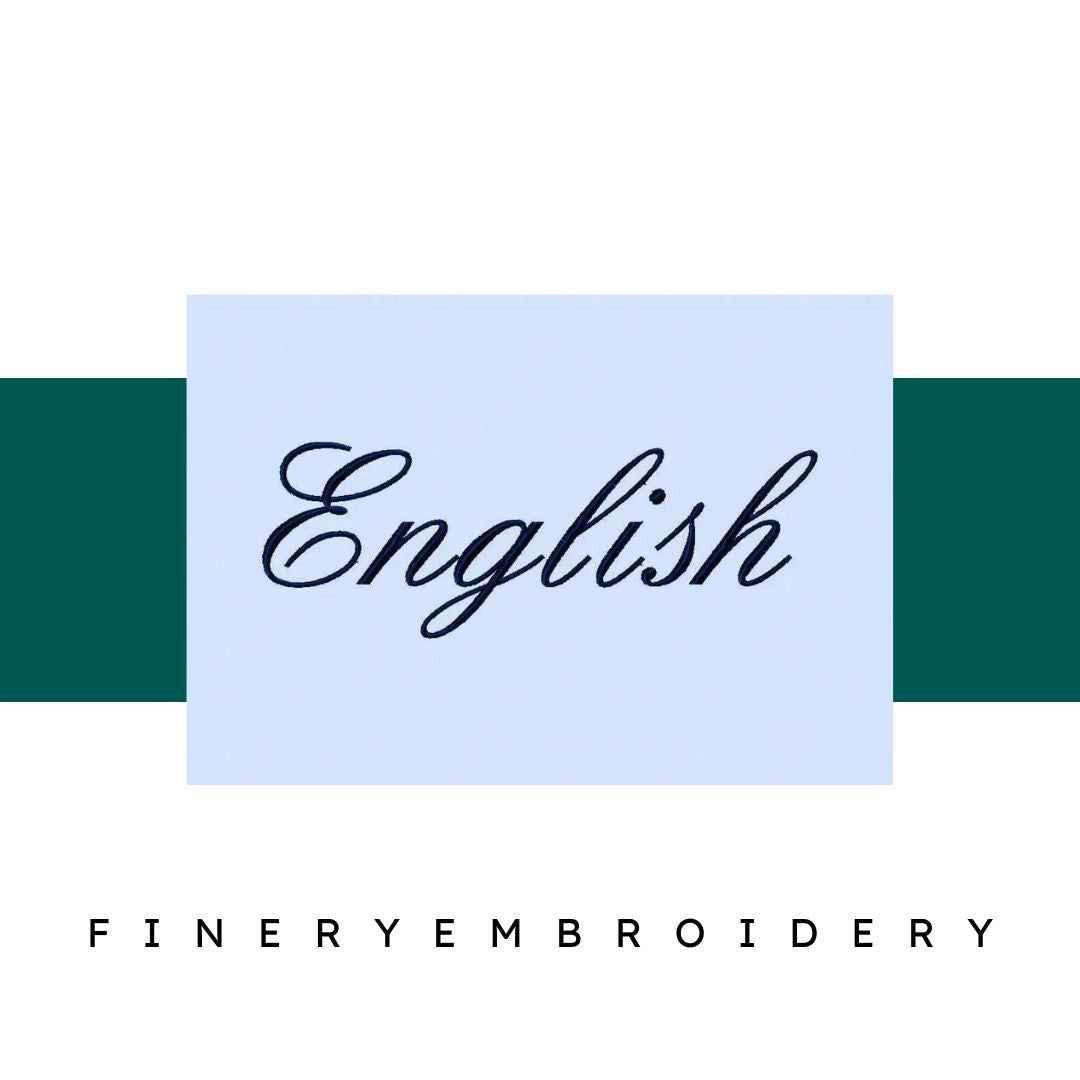
Transform your embroidery projects into timeless masterpieces with the exquisite English Embroidery Alphabet Font Set!
Introducing the English Embroidery Alphabet Font Set, your new go-to collection for enhancing any embroidery endeavor. This elegant set features intricately designed letters that bring a sophisticated flair to your creations. Perfect for personalizing monograms, creating signage, or adding decorative elements to various projects, this font set is an essential tool for any embroidery enthusiast.
The elegance of the English Embroidery alphabet font set is unmatched, offering a versatile approach to any design. Each character is carefully crafted to ensure clarity and beauty, making them a joy to incorporate into your work. Whether you’re aiming for a classic look or something modern, this font set has the versatility to meet all your creative needs.
The possibilities are endless with the English Embroidery alphabet font set! Use it to create stunning monograms for personalized gifts, eye-catching signage for events, or unique decorative pieces that stand out in any room. This collection is perfect for anyone looking to add a distinctive touch to their embroidery projects, allowing your creativity to flourish.